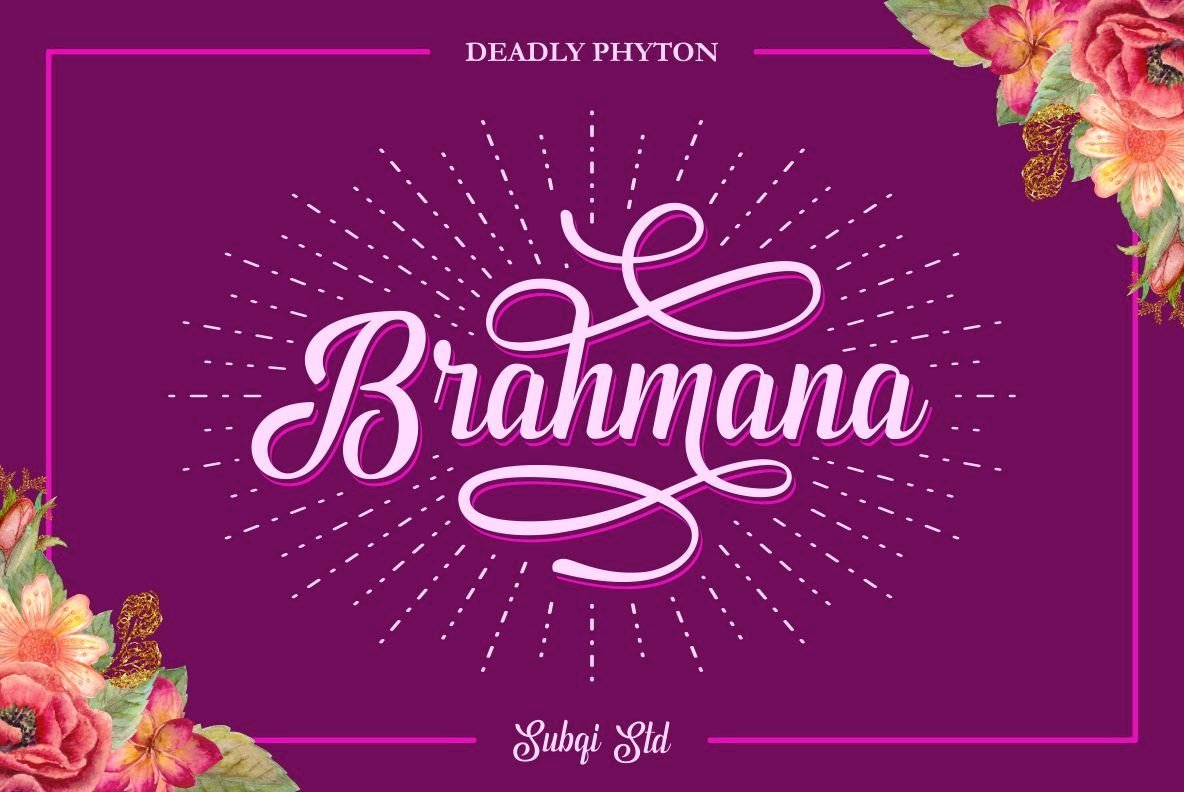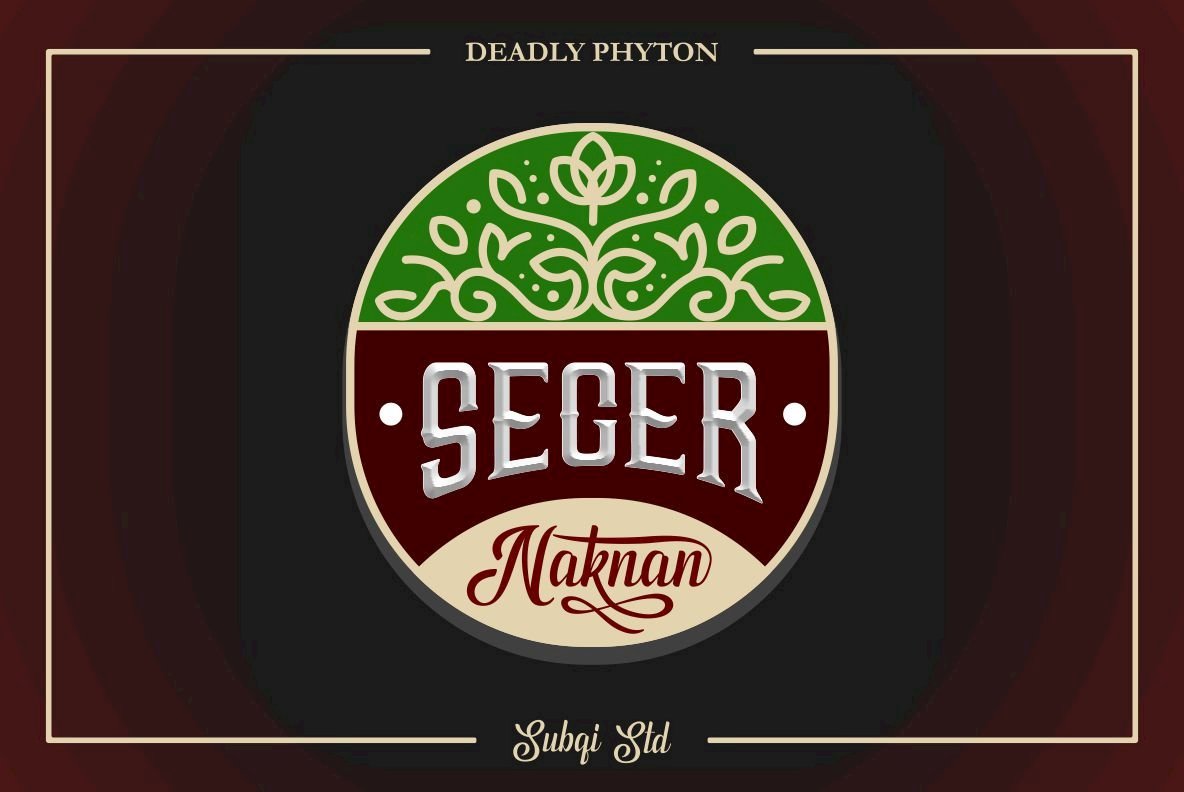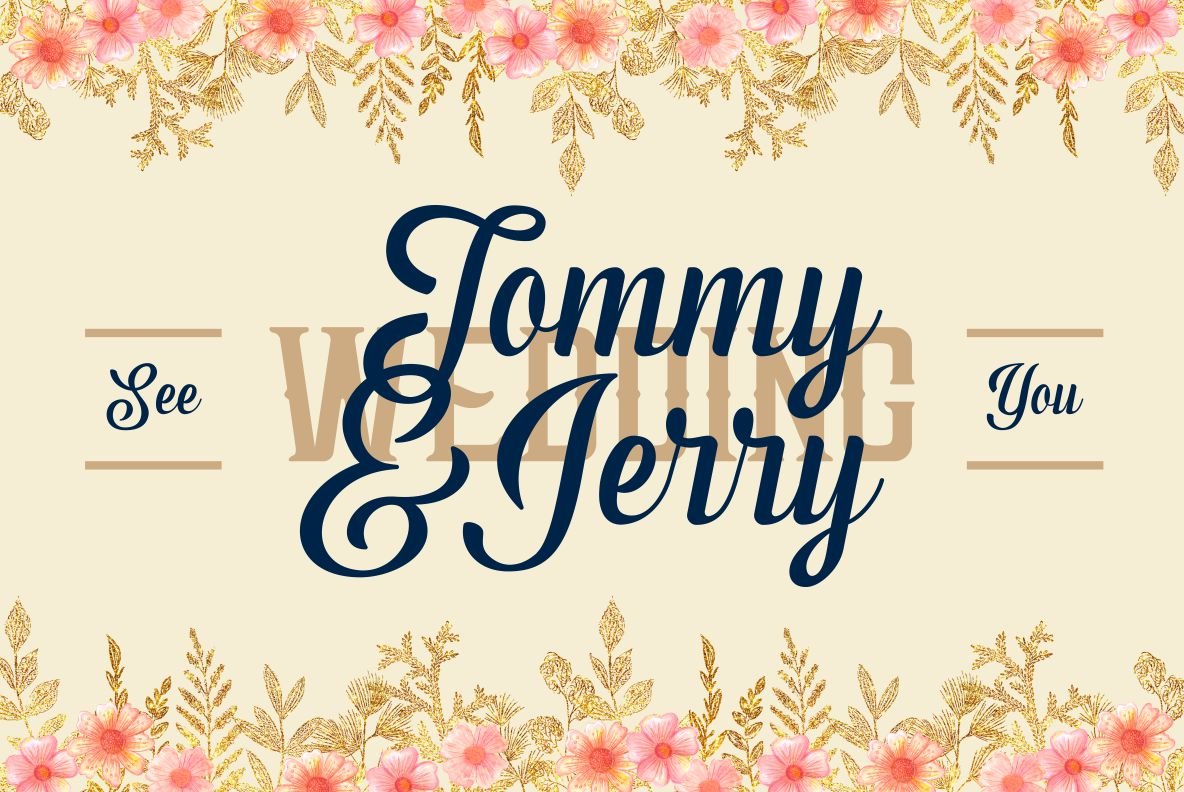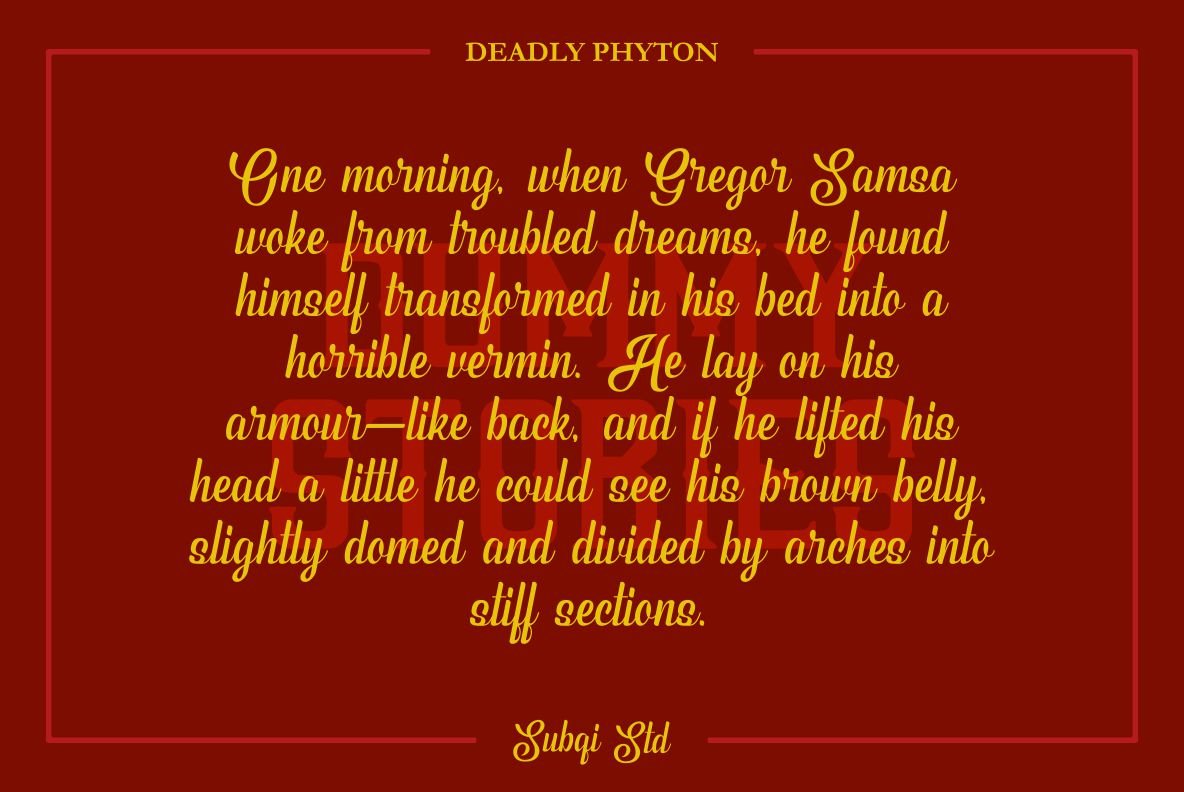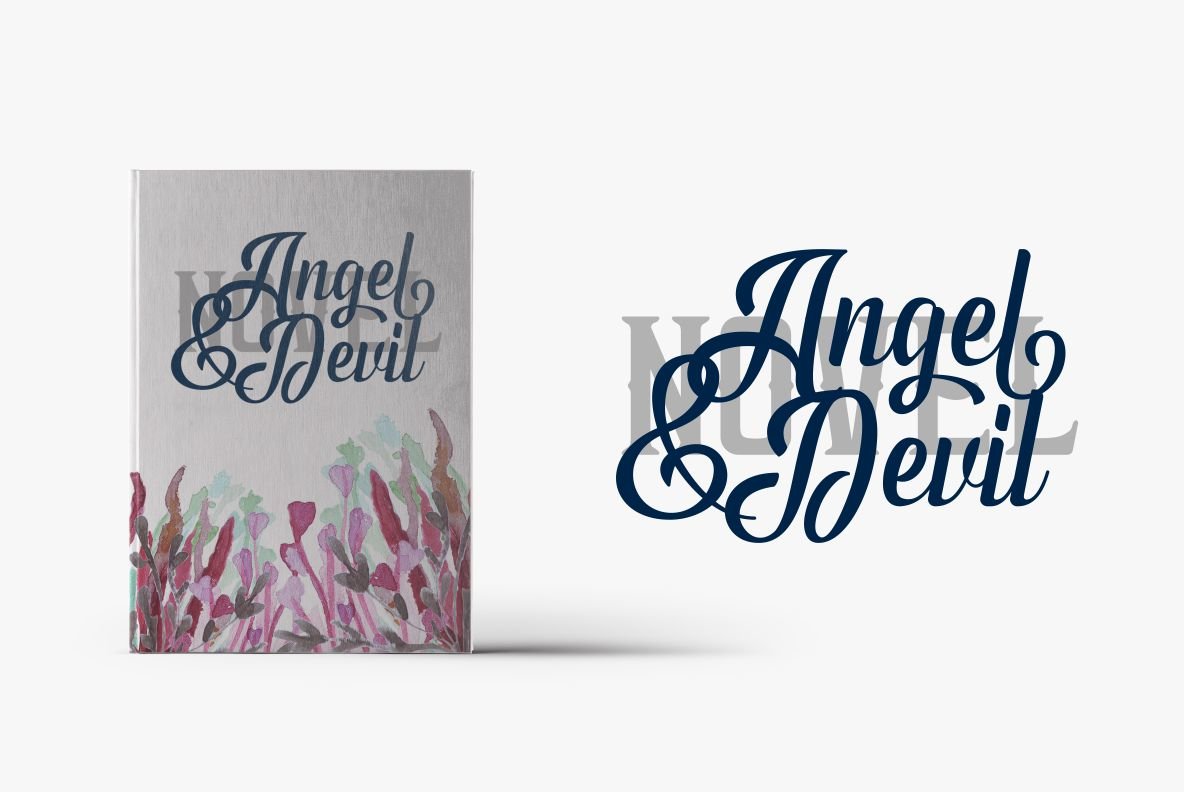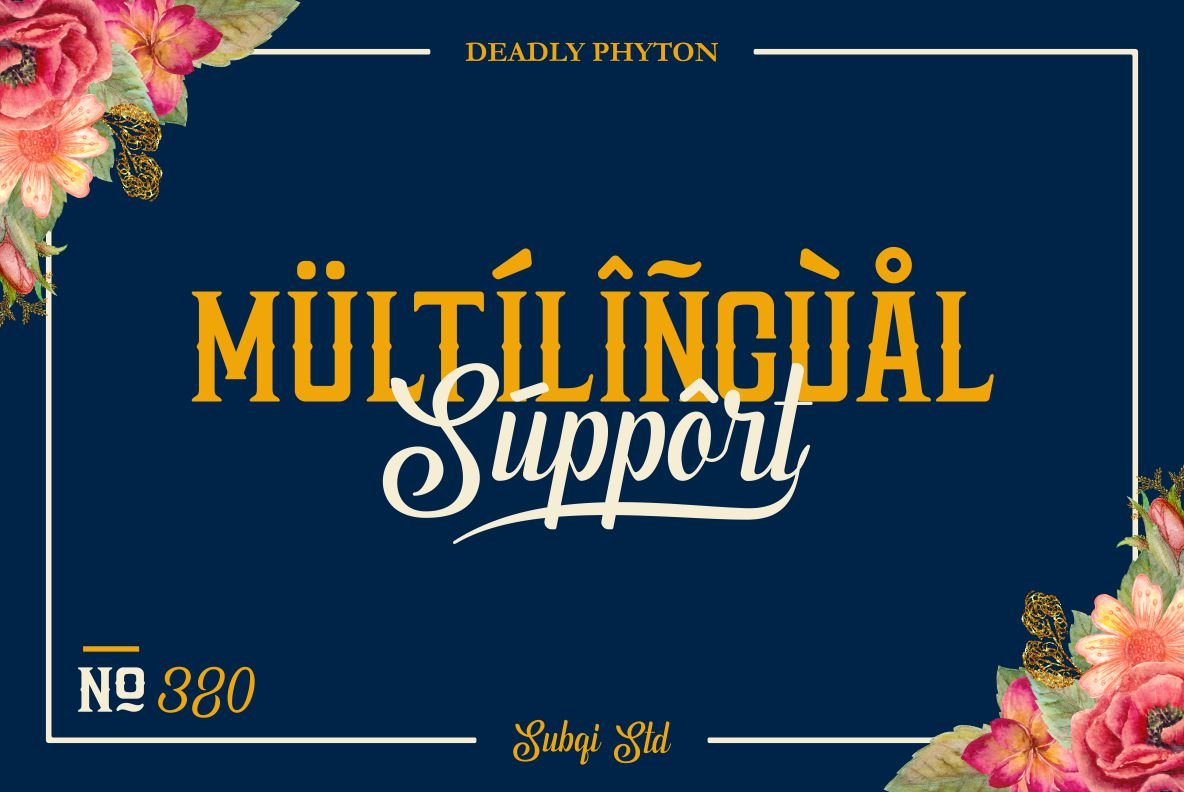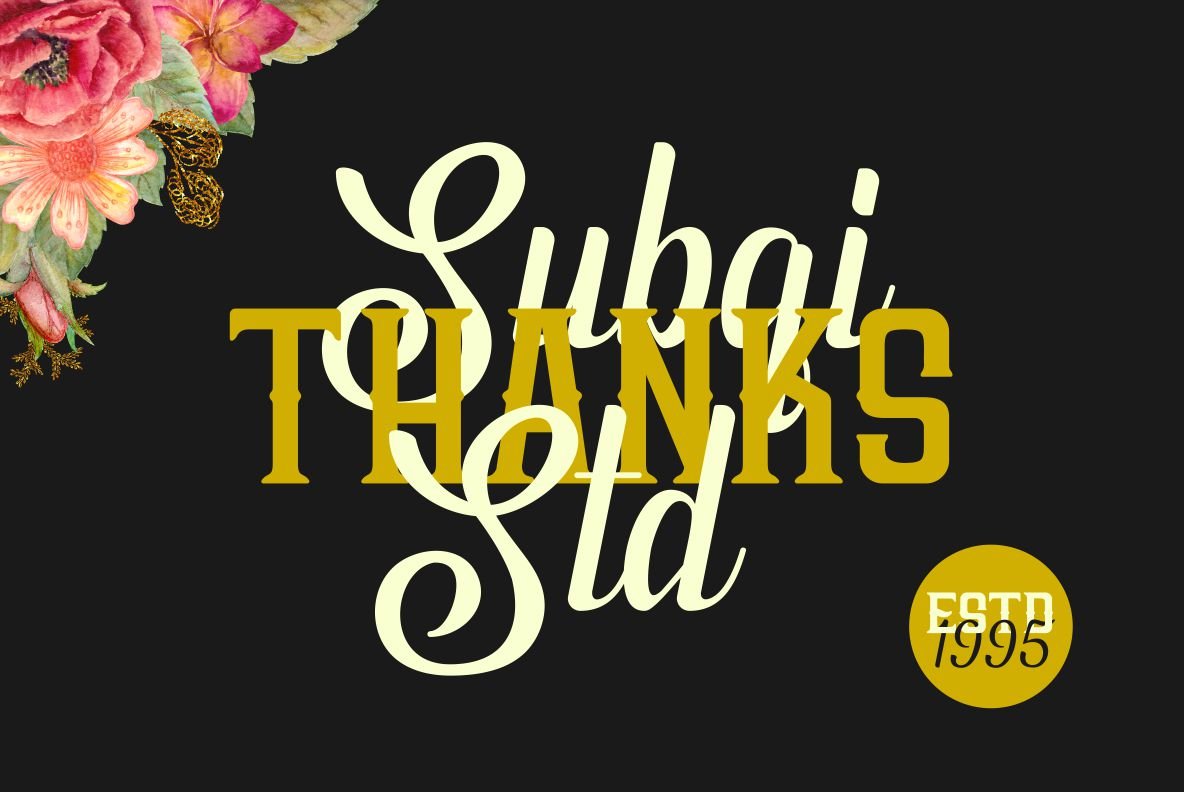
Deadly Phyton Combo Font
Phyton Script
Phyton Serif
The Deadly Phyton Combo typeface captures an edgy and adventurous aesthetic, making it ideal for designers seeking to add a striking visual element to their projects. Created by Subqi Std, this typeface combines a modern edge with classic sensibilities, offering a versatile tool for innovative branding and design applications. Features: This typeface invites creativity and experimentation, making it an invaluable asset for graphic designers aiming to create bold, impactful visuals.Deadly Phyton Combo: Dynamic Typeface for Bold Designs